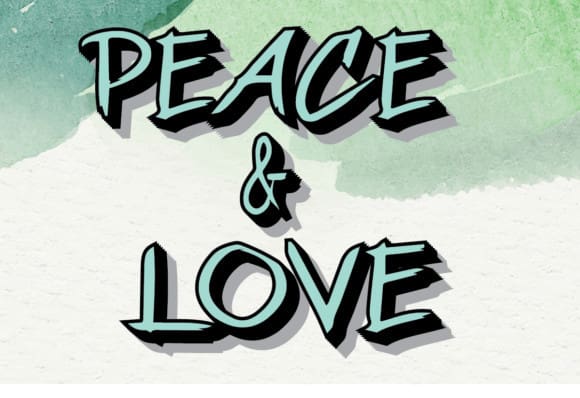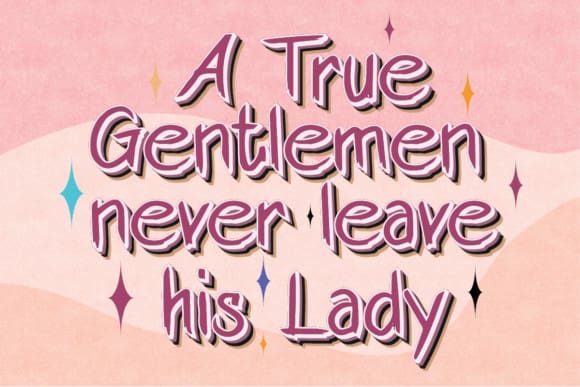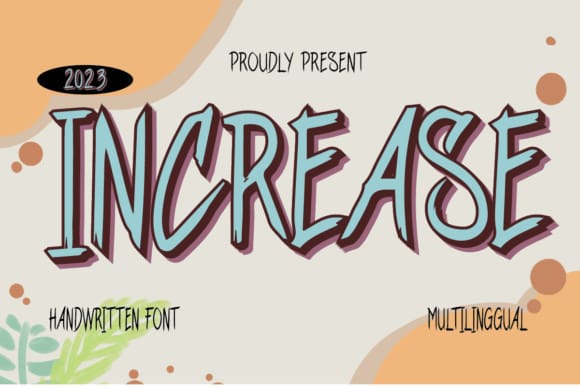
Increase Font
Increase Font is a beautiful script and handwritten typeface that captures the essence of elegance and charm. With its fluid strokes and delicate details, this font adds a touch of sophistication to any design. Perfect for invitations, greeting cards, and branding, Increase Font effortlessly conveys a sense of personalization and artistic flair.